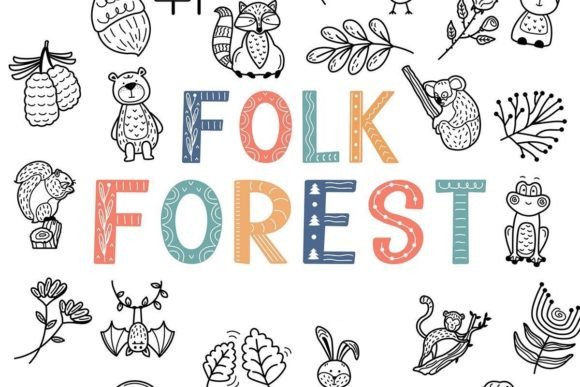
Are you looking for the perfect font to complement your Pali language projects? Look no further than Folk Forest Font! Created by digitalplannerland, this fun and lovely dingbats font is the best font for Pali language, with its unique and eye-catching design that will take your project to the next level.
Folk Forest Font is not just any ordinary font. It's a font that exudes emotions and creativity, making it perfect for designing invitations, greeting cards, posters, and more. This font family is versatile and offers a wide range of designs, allowing you to convey your message with ease.
With Folk Forest Font, you won't have to settle for boring and mundane font designs. Instead, you'll have access to an extensive collection of captivating and unique designs that are sure to leave a lasting impression on your audience. Whether you're looking for something fun and whimsical or elegant and sophisticated, Folk Forest Font has got you covered.